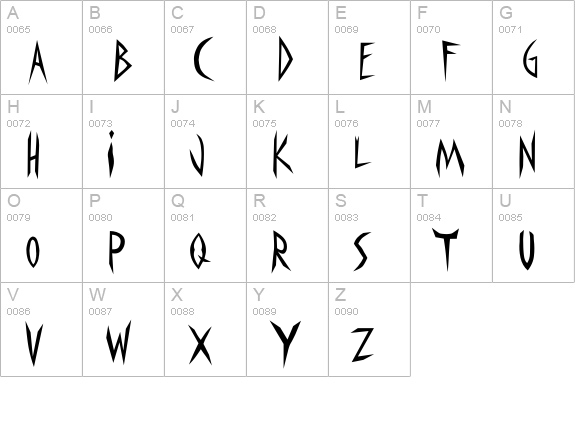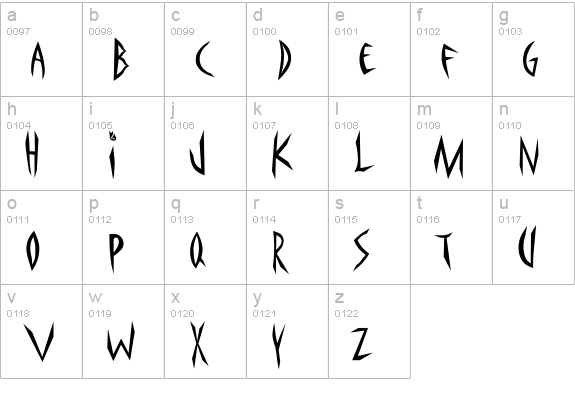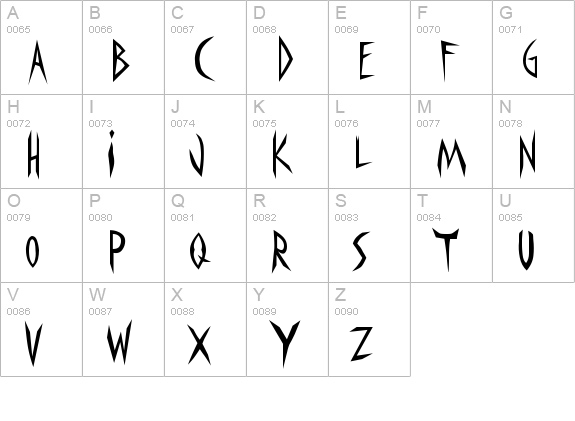
Panophobia Font Details
Introducing Panophobia font, a captivating and versatile typeface that is sure to elevate any design project to new heights. With its elegant and modern aesthetic, Panophobia font effortlessly blends sophistication with a touch of whimsy, making it a perfect choice for a wide range of creative endeavors. Designed with meticulous attention to detail, Panophobia font showcases a harmonious balance between clean lines and artistic flourishes. Its carefully crafted letterforms exude a sense of confidence and refinement, while the subtle curves and unique angles add a hint of playfulness and intrigue. Whether used in headlines, logos, branding materials, or editorial layouts, Panophobia font commands attention and captivates the reader's gaze. Its versatility allows it to seamlessly adapt to various design styles, from sleek and minimalistic to bold and expressive. But what truly sets Panophobia font apart is its accessibility. It is generously offered for free, inviting designers of all levels to explore its endless possibilities. To download this remarkable font, simply visit FontsMarket.com, where it can be readily accessed and effortlessly incorporated into your creative projects. With Panophobia font, the fear of not having the perfect typeface for your design endeavors becomes a thing of the past. Embrace the freedom of creativity and let Panophobia font empower your visions with its timeless elegance and artistic flair.